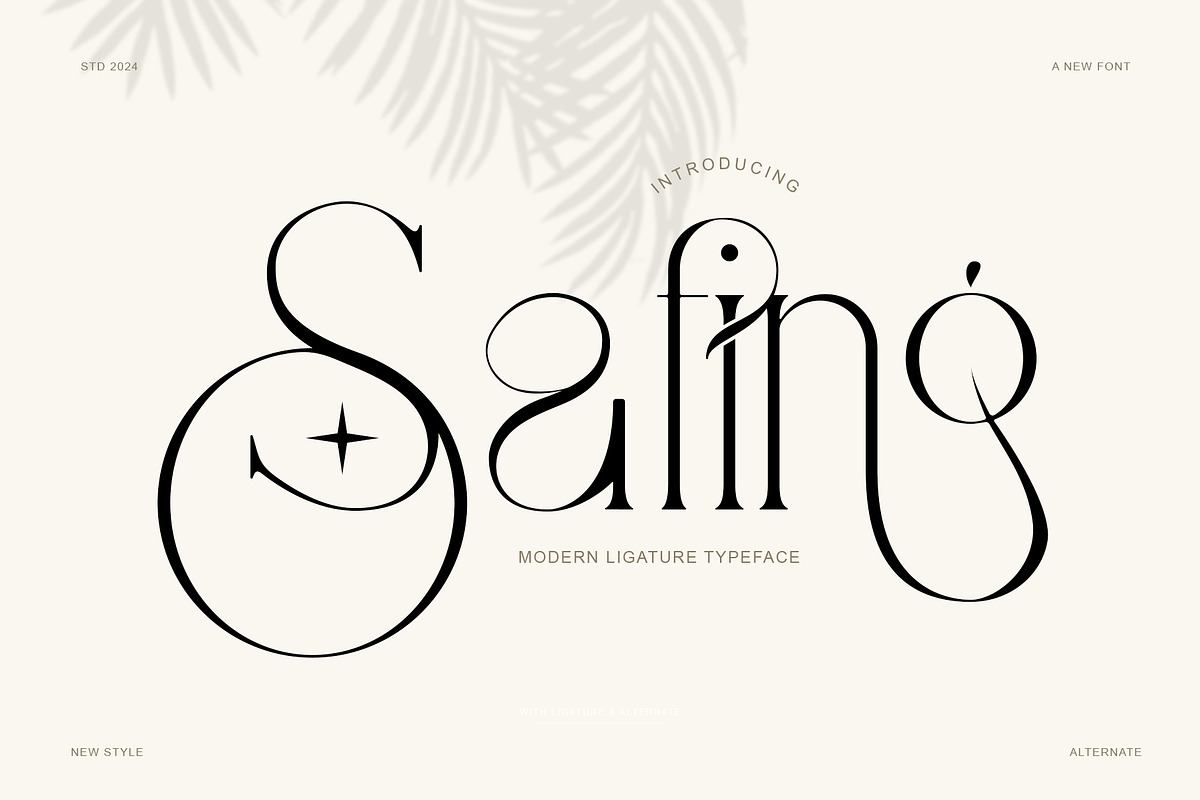
Safing ligature serif typeface Free Download
Safing Ligature Serif Typeface Free Download
Safing Ligature Serif Typeface Free Download is a luxurious and stylish serif font featuring elegant ligatures and refined letterforms. With high contrast strokes, graceful curves, and eye-catching details, Safing is perfect for upscale branding, editorial layouts, fashion campaigns, logo designs, and wedding stationery.
What sets Safing Ligature Serif Typeface Free Download apart is its creative ligature combinations that add a unique and sophisticated flair to your typography. Whether you’re designing bold headlines or subtle accents, this typeface brings a sense of elegance and distinction to any project.